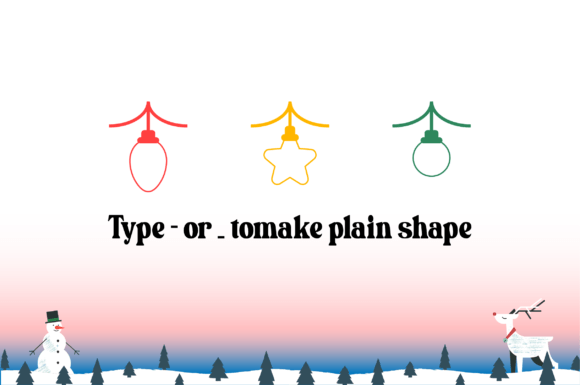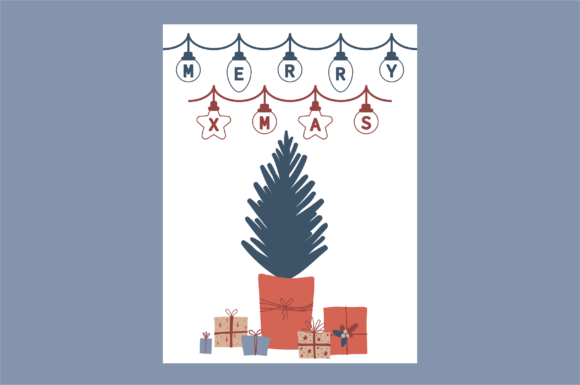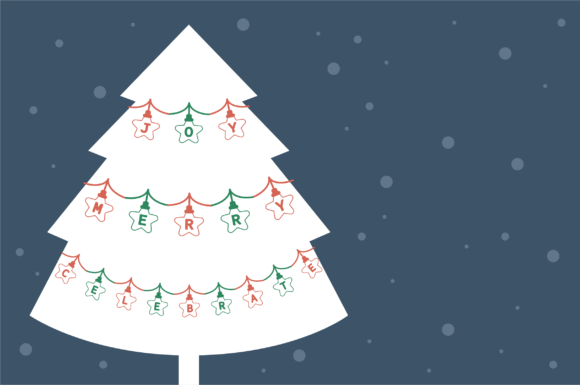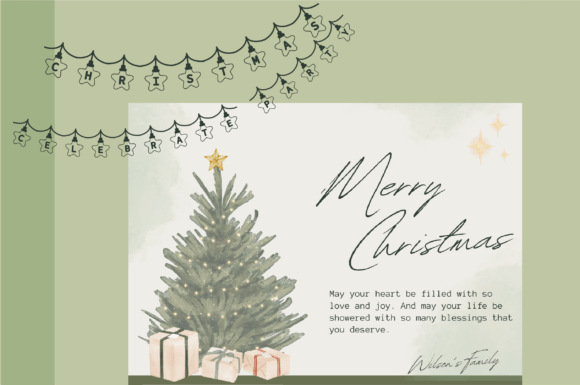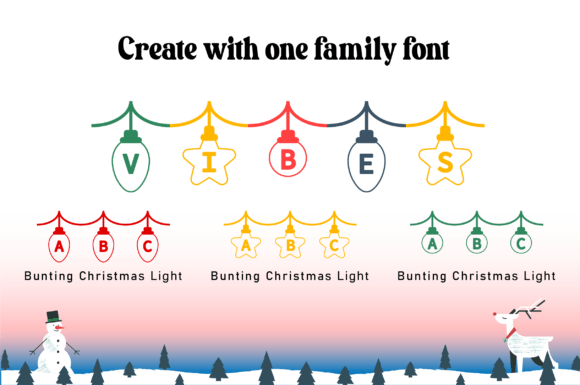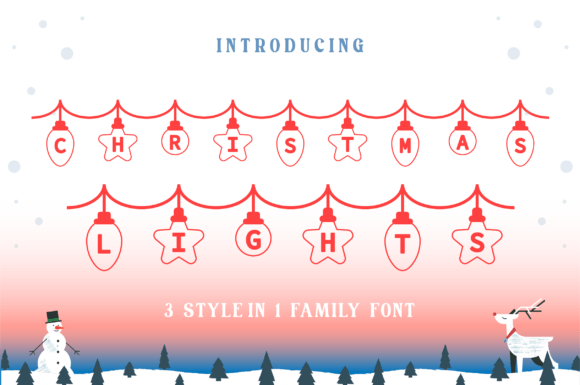
The Magic of Bunting Christmas Light Font: A Designer’s Delight
I still remember the holiday season when I was working on a festive project for a client, and I was struggling to find the perfect font to match their brand’s playful vibe. The client wanted something that would make their holiday cards and decorations stand out, but I was stuck in a design rut. That’s when I stumbled upon the Bunting Christmas Light font, and it was love at first sight! ✨
This fun display font features letters inside colorful Christmas balls and stars, making it perfect for adding a festive touch to holiday cards and decorations. In this article, I’ll share my experience with Bunting Christmas Light, its features, and how to make the most of it in your designs.
• 🎉 Festive and playful design: The font’s unique feature of having letters inside Christmas balls and stars makes it a standout for holiday designs.
• ✅ Ease of use: The font is easy to work with, and its OpenType features make it simple to customize.
• ✨ Versatility: Bunting Christmas Light can be used for a variety of projects, from holiday cards to decorations and even social media graphics.
While Bunting Christmas Light is an amazing font, there are a few things to keep in mind: 🤔
• ⚠️ Legibility at small sizes: As with many display fonts, Bunting Christmas Light may not be legible at very small sizes. It’s best used at larger sizes to make the most of its festive design.
• ⚠️ Limited use cases: While the font is versatile, it’s primarily designed for holiday-themed projects. It may not be the best choice for non-holiday designs.
The Designer Inspiration Behind Bunting Christmas Light
The story behind Bunting Christmas Light is one of festive fun and creativity. According to the designer, the inspiration came from childhood memories of decorating the Christmas tree with colorful ornaments and lights. The goal was to create a font that would bring that same sense of wonder and magic to holiday designs.
Q: What type of projects is Bunting Christmas Light best suited for?
A: Bunting Christmas Light is perfect for holiday-themed projects, such as Christmas cards, decorations, and social media graphics.